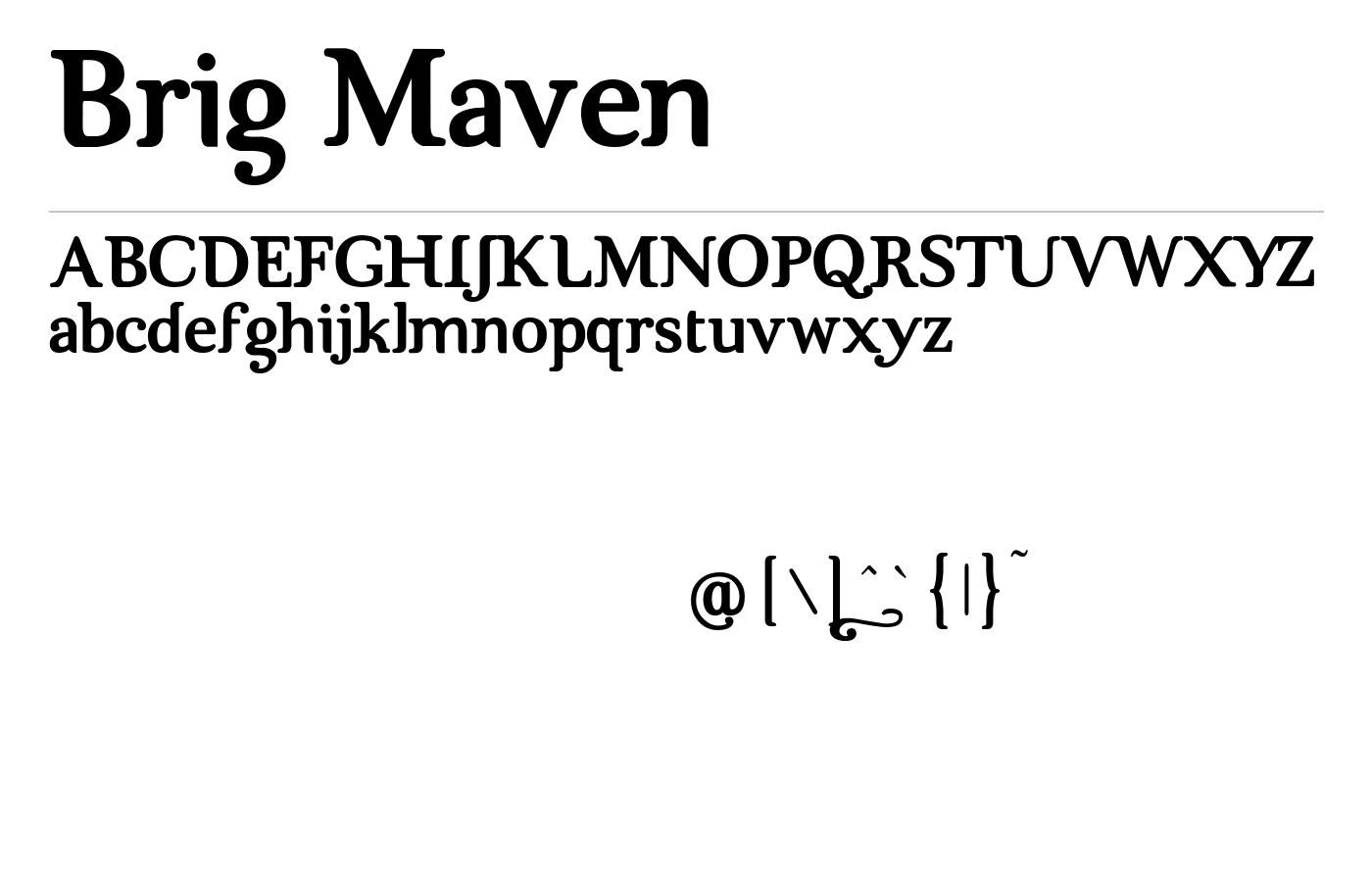
Brig Maven is a distinctive serif font with a playful yet refined character, featuring medium weight and moderate contrast that balance readability with personality. Its unique letterforms, such as the curved tail on the Q and the whimsical ampersand, give it a vintage-inspired but approachable feel, ideal for branding, editorial headlines, and packaging that seek a blend of charm and professionalism. This font works best when you want to add a touch of creativity and warmth without sacrificing clarity.
Brig Maven Font
About Brig Maven Font